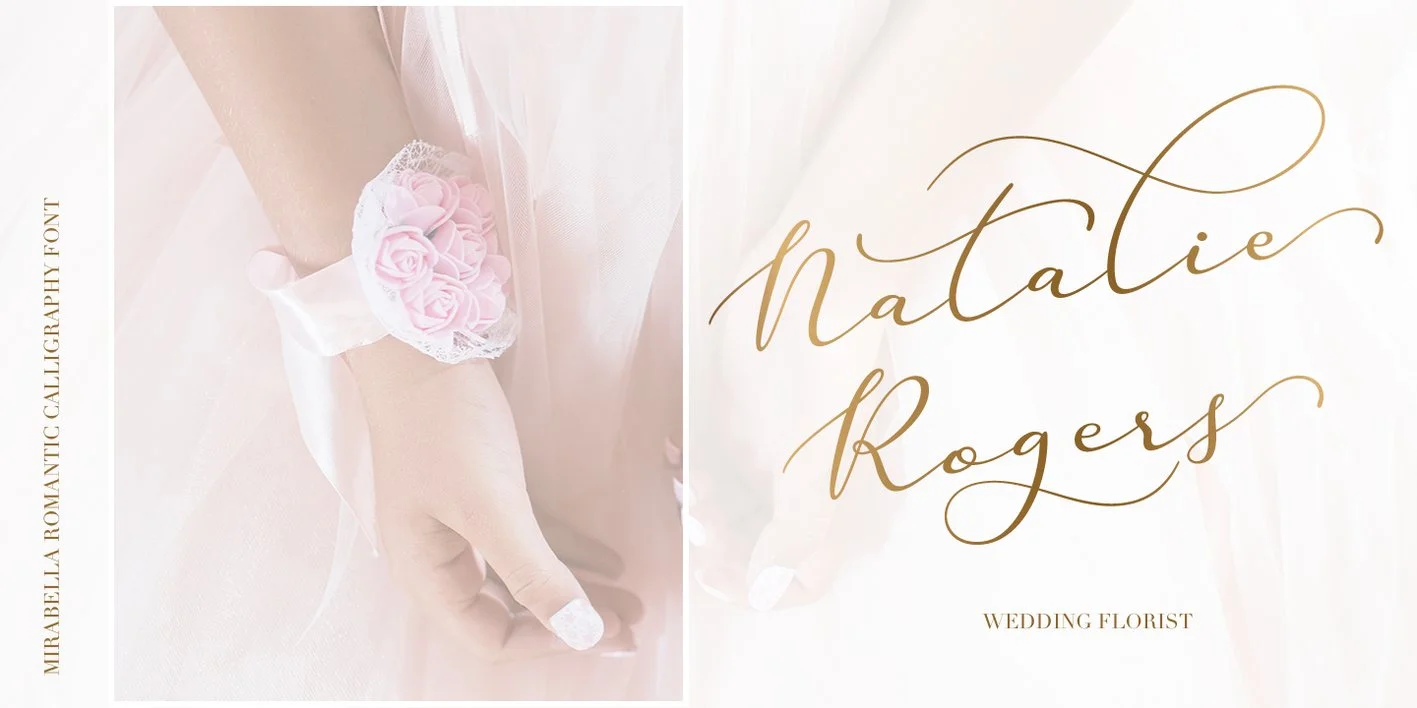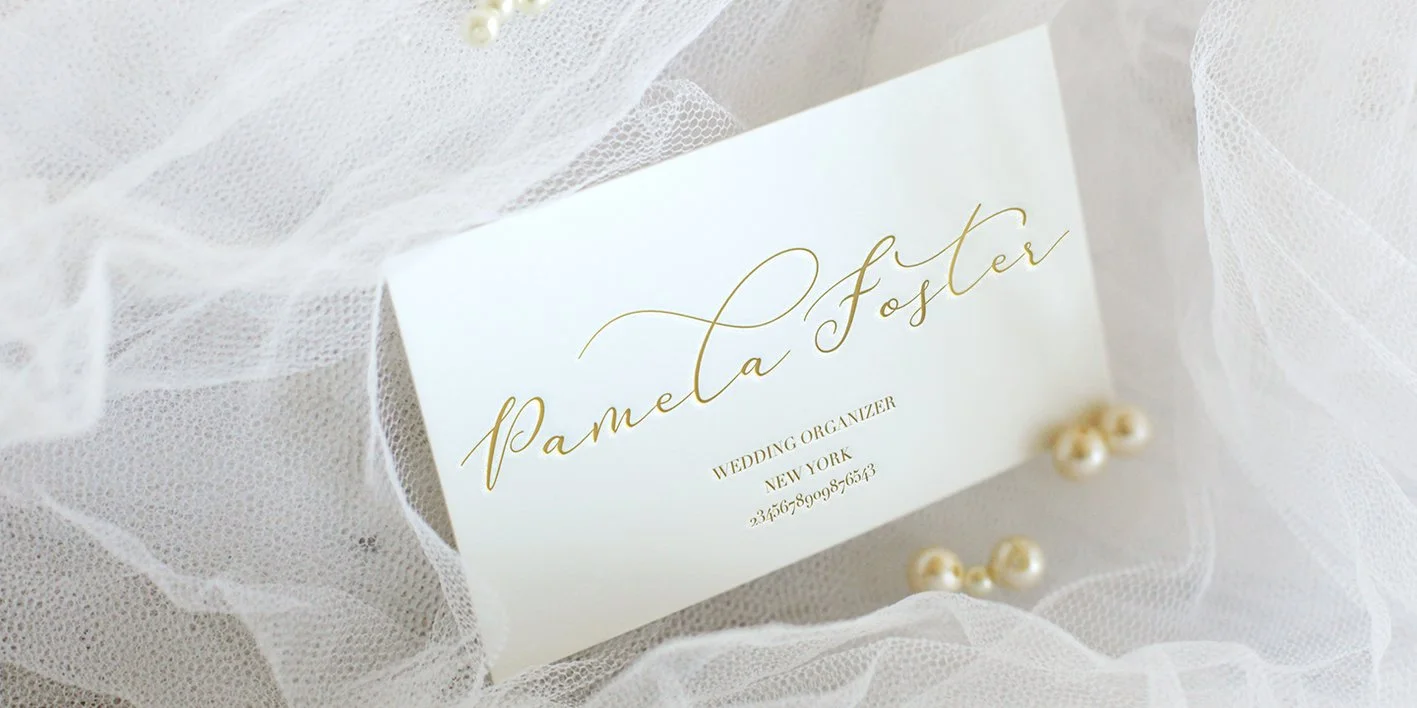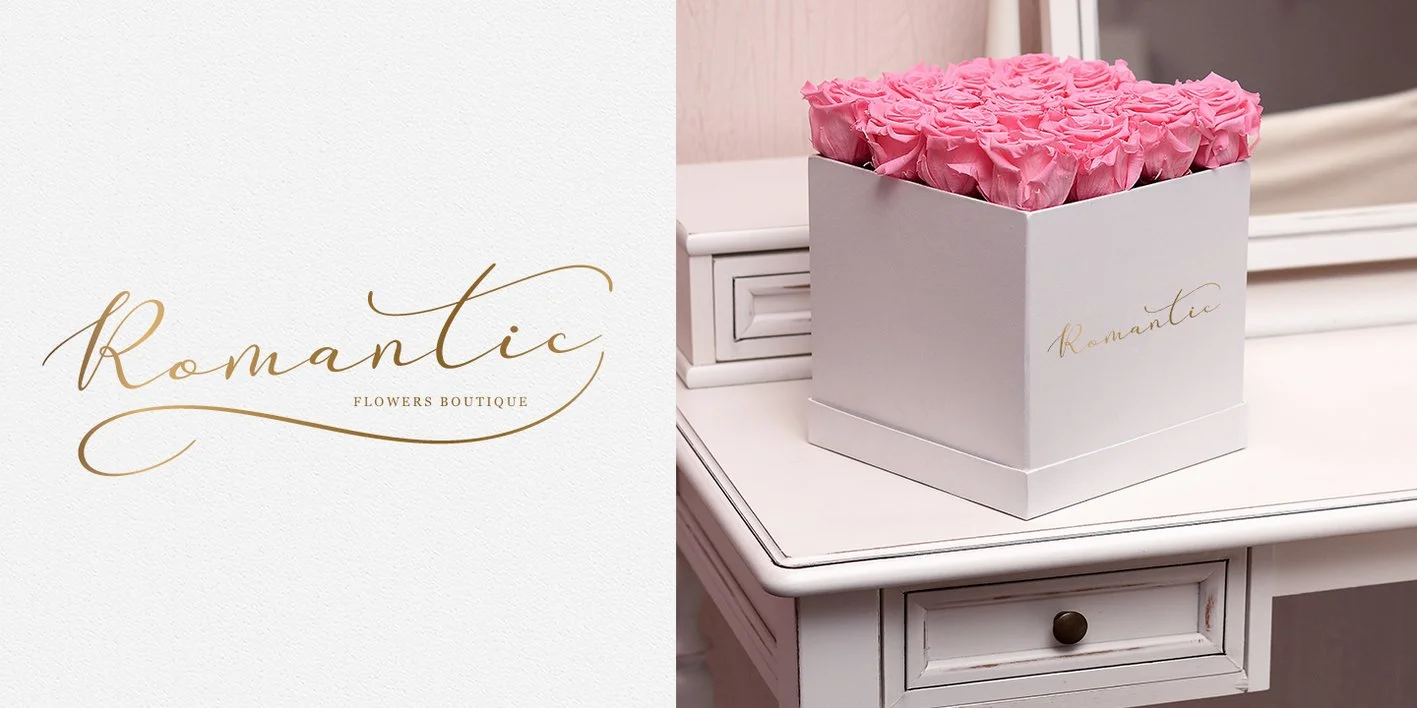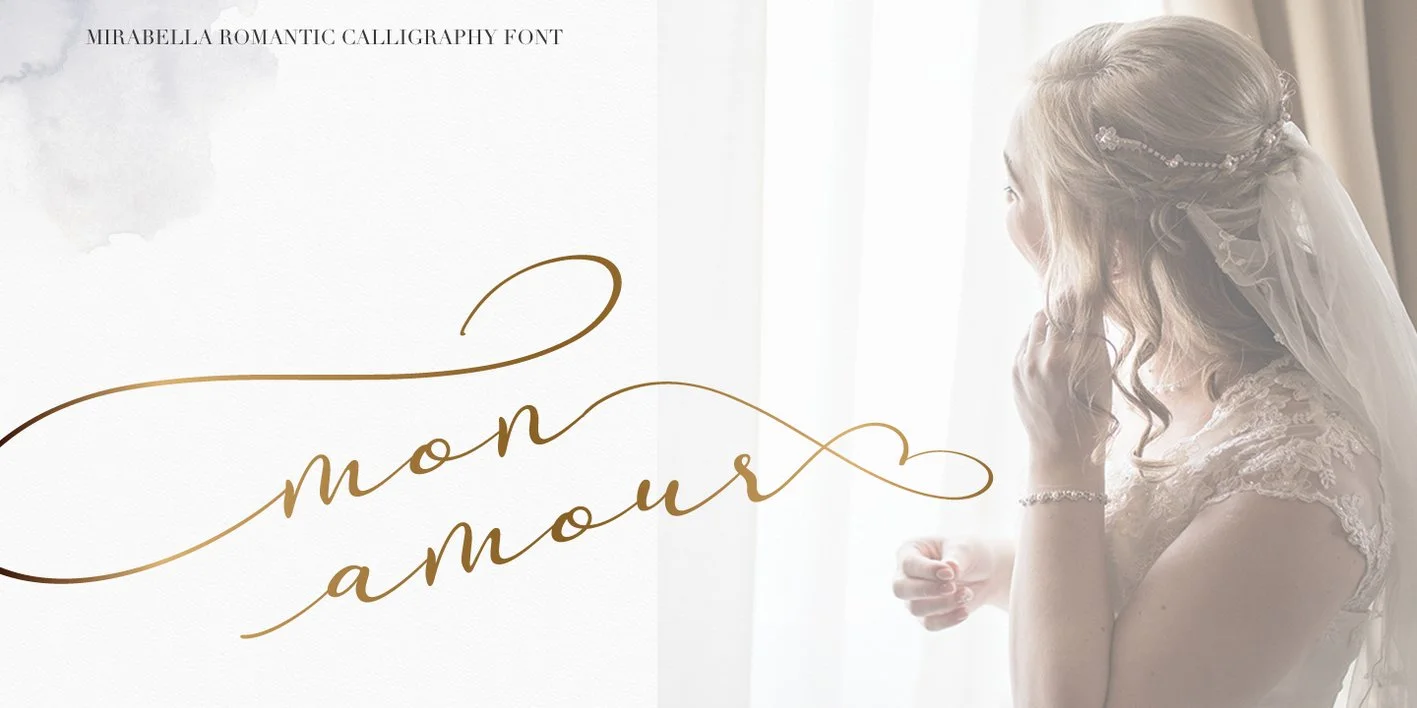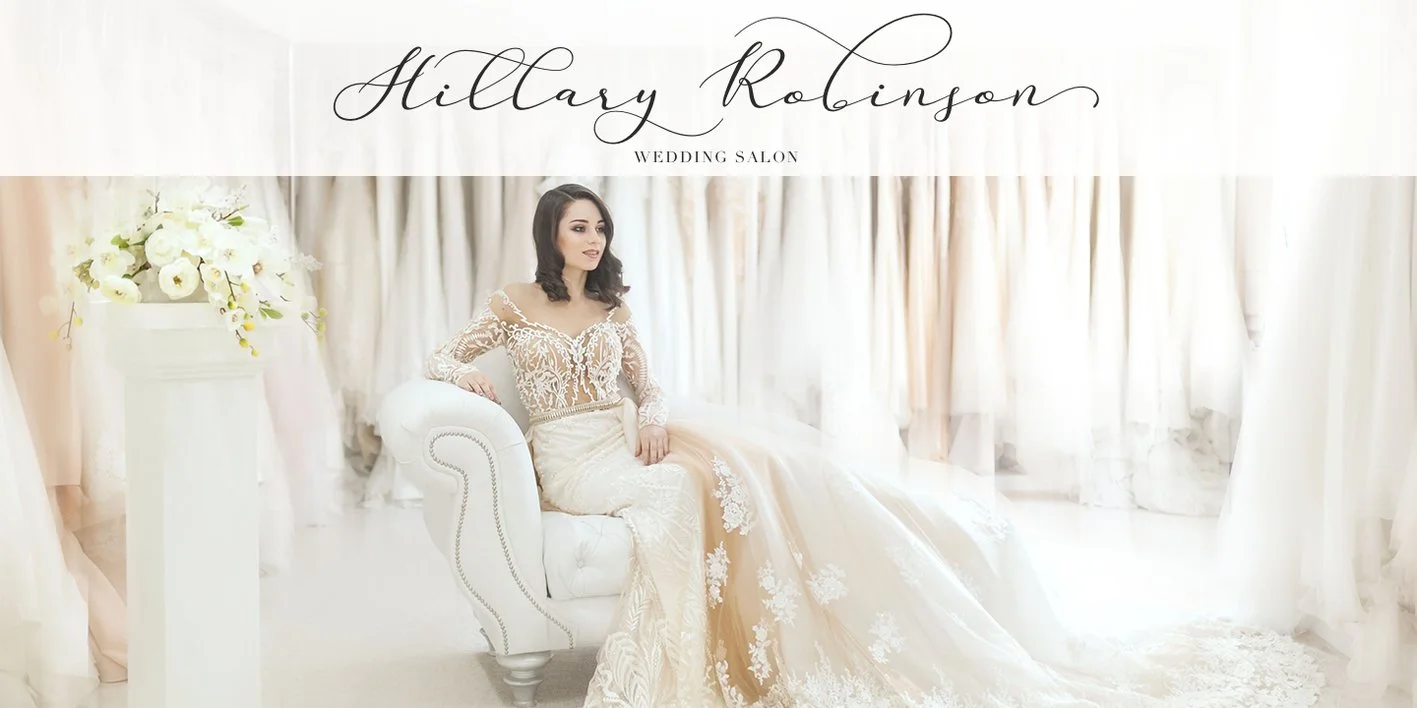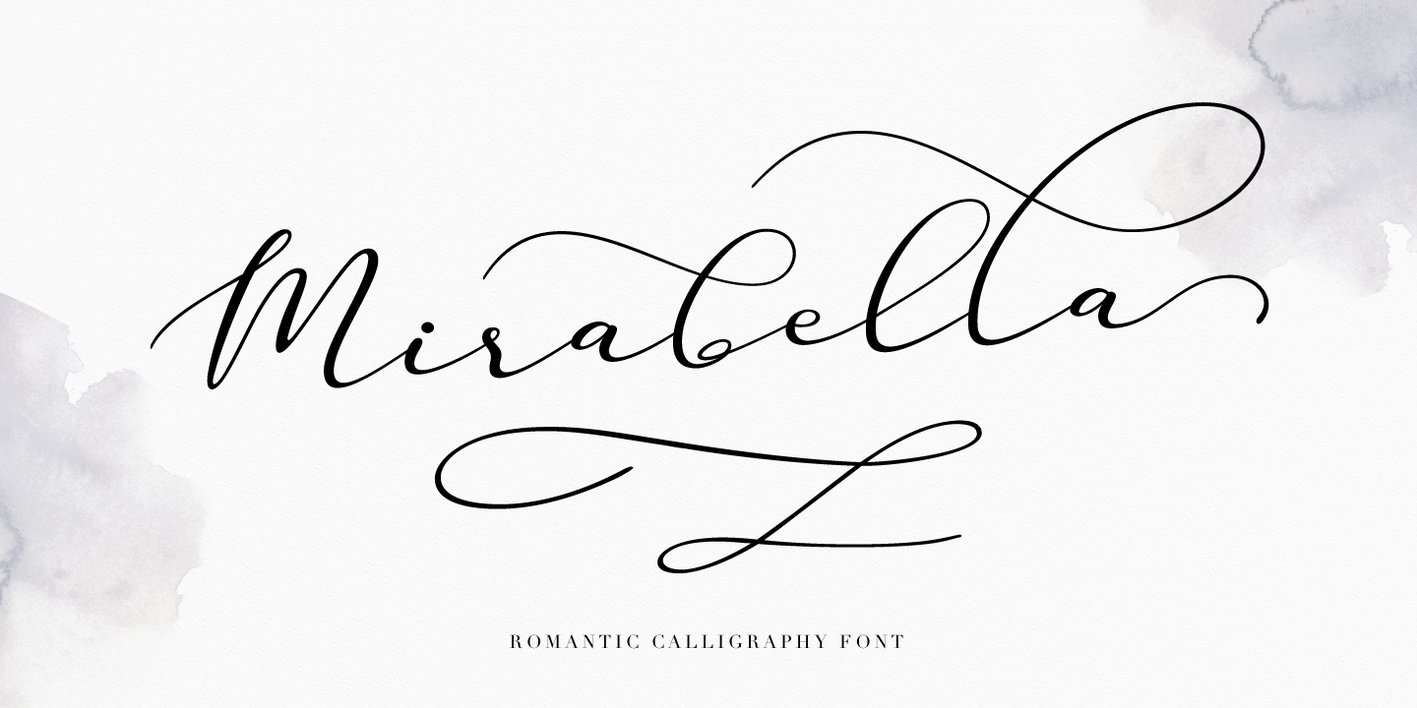
Mirabella Font
When a design brief calls for both visual harmony and precise spacing and immediate visual impact, type choices matter — Mirabella answers that brief. The typeface brings an elegant, calligraphic sensibility to a broad range of creative disciplines, with a confident voice that adapts to diverse briefs that holds up whether the work is print-first or screen-first.
In practice, Mirabella proves particularly effective for greeting cards, boutique logos, logo design, environmental graphics, packaging design. Designers reaching for it find that the type decisions feel resolved rather than laboured — a useful quality when client timelines are tight.
The range of applications extends to signage systems, advertising campaigns, wedding invitations, annual reports. That breadth is deliberate: the proportions and spacing were stress-tested across a wide range of mock briefs before the typeface was finalised.
Mirabella sits comfortably alongside both classic and contemporary typefaces in multi-font hierarchies. It takes direction rather than competing for attention — a quality that experienced designers know is harder to find than it appears.
UX designers establishing typographic systems for digital products find Mirabella a reliable choice for projects that demand both personality and restraint. The design avoids the self-conscious quirkiness that dates quickly, settling instead for considered distinctiveness that holds up over time.